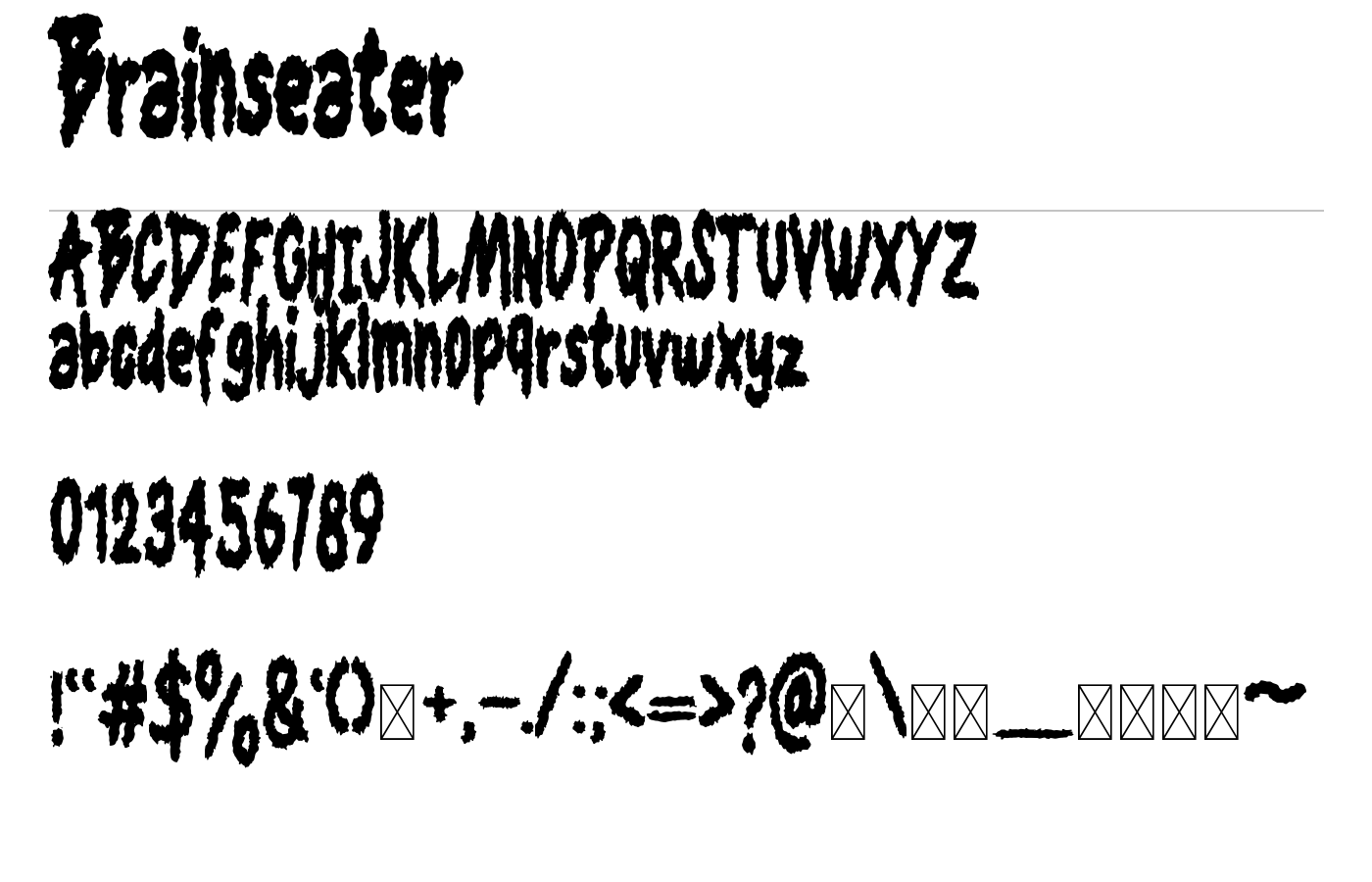
Brainseater is a bold, distressed display font with a rough, irregular texture that gives it a spooky, horror-themed vibe. Its uneven, jagged edges and condensed letterforms create an unsettling, dramatic effect perfect for Halloween designs, posters, or themed branding. This font works best for eye-catching headlines and titles where a creepy, intense atmosphere is desired.
Brainseater Font
About Brainseater Font
| Font family | Brainseater Font |
| Designer | Yumnacreative |